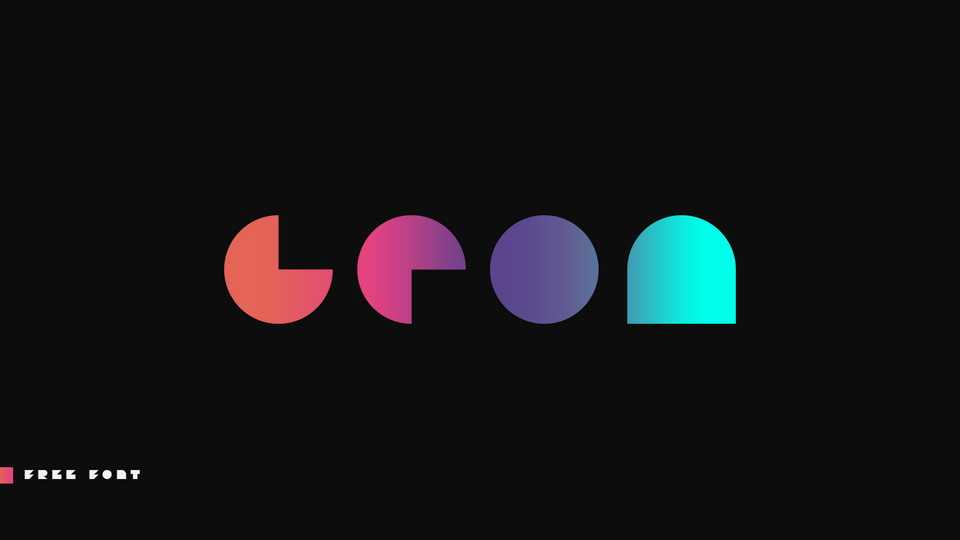
Download Geon font, a retro display typeface based on simple geometric shapes. With its minimalist look, Geon font is perfect for posters, logos, games, headlines, packaging and other typographic artworks.